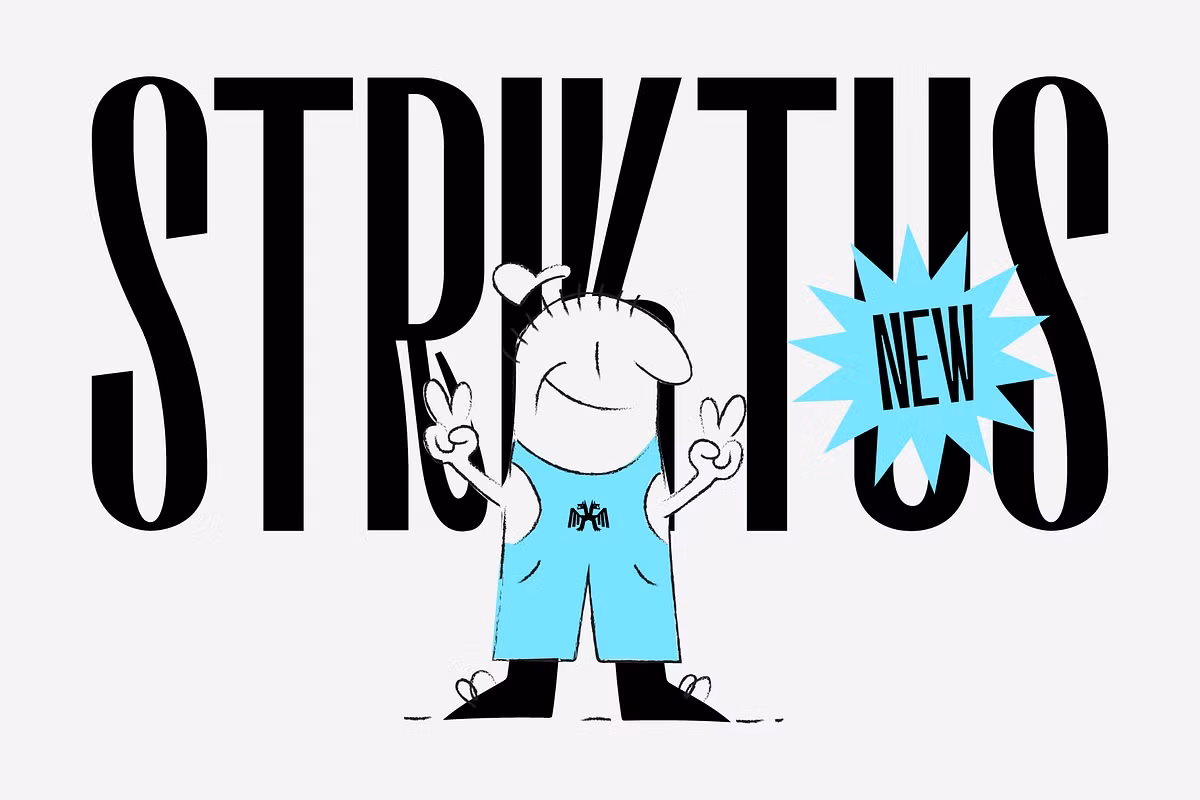
Neue Striktus - Display Type Font Free Download is a bold and striking display typeface designed to make a powerful statement. With its sharp, geometric structure and clean lines, this font is perfect for headlines, posters, branding, logos, and any design project that requires a modern and eye-catching aesthetic.
The Neue Striktus font is ideal for high-impact designs that need to convey strength, clarity, and professionalism. Whether you're designing for a tech brand, a creative agency, or a contemporary event, this font adds a strong, distinctive touch to your typography.
Make a bold statement in your designs with the sleek, modern style of Neue Striktus!